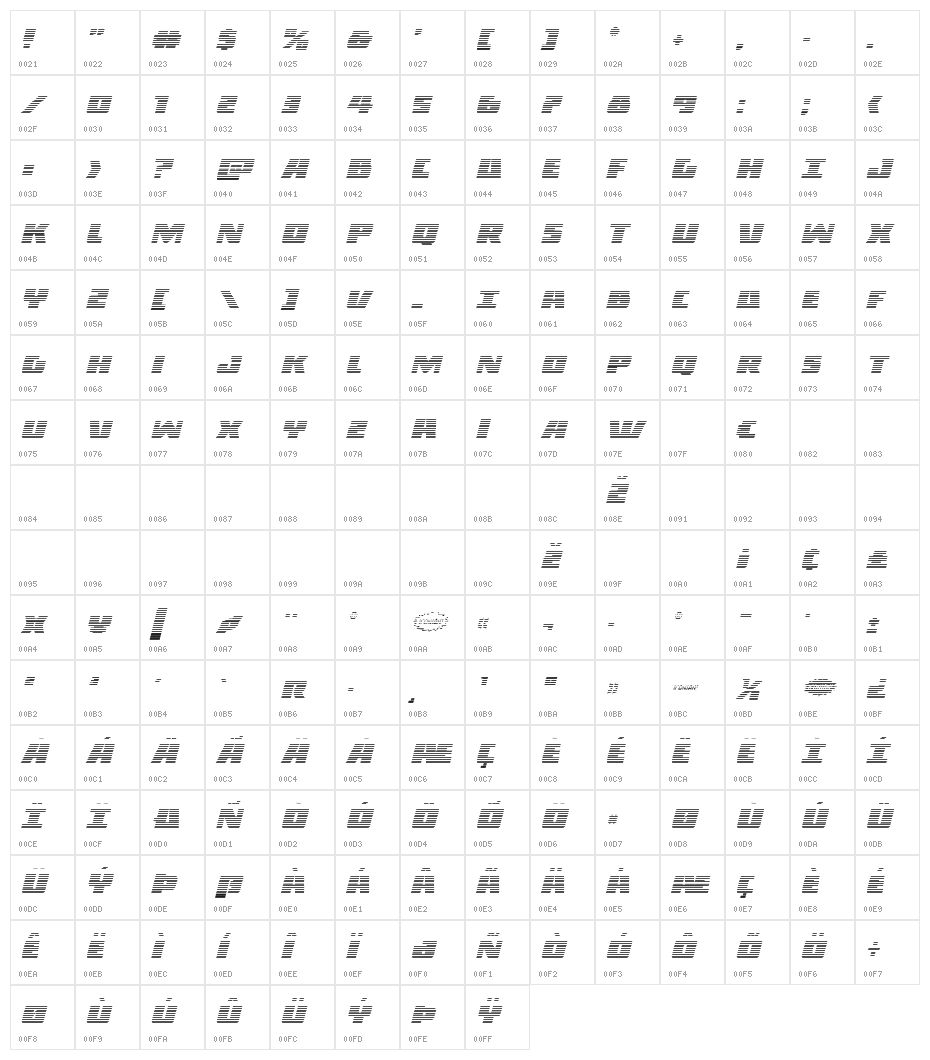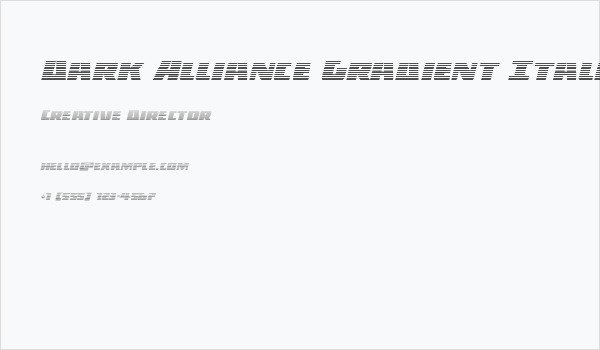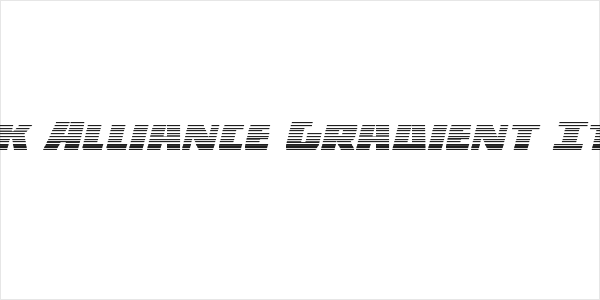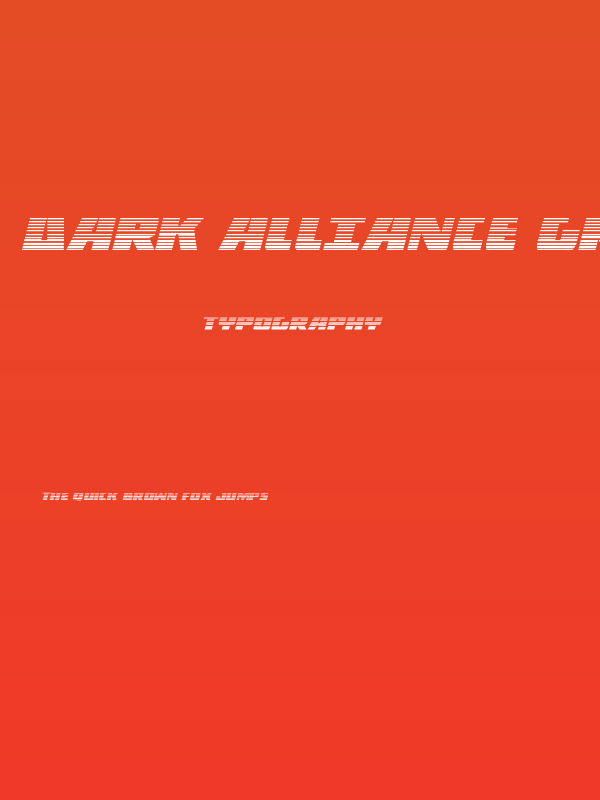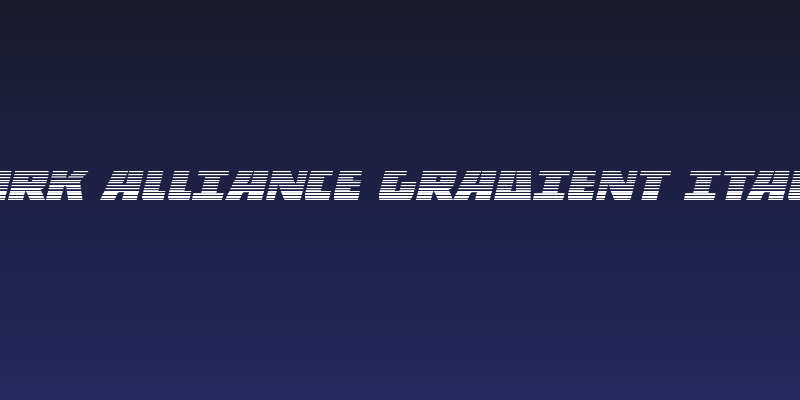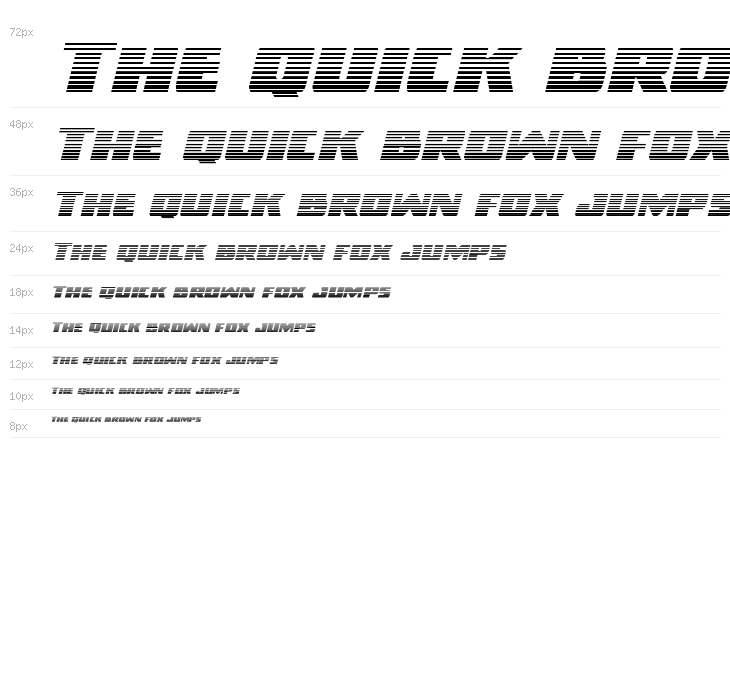
Dark Alliance Gradient Italic Font
Dark Alliance Gradient Italic Description
This font features a bold, futuristic design with a distinct gradient effect created by horizontal lines. The italicized style adds a sense of motion and dynamism, making it ideal for projects that require a modern and edgy look. The uppercase and lowercase letters maintain a consistent width, contributing to a uniform appearance. The numerals and special characters are designed with the same gradient pattern, ensuring a cohesive look across all text elements. This font's unique style is perfect for creating eye-catching headlines, logos, and branding materials that stand out.
| Overall Style | Futuristic, Modern |
| Proposed Projects | Ideal for futuristic branding, sci-fi themed projects, video game titles, and dynamic posters. |